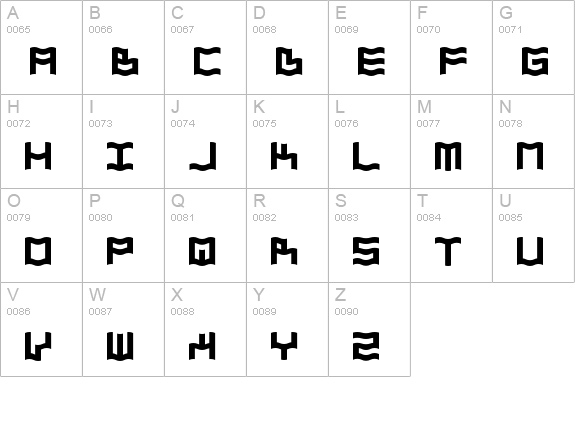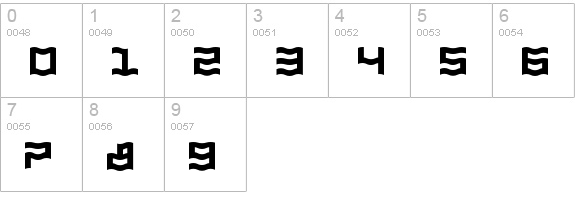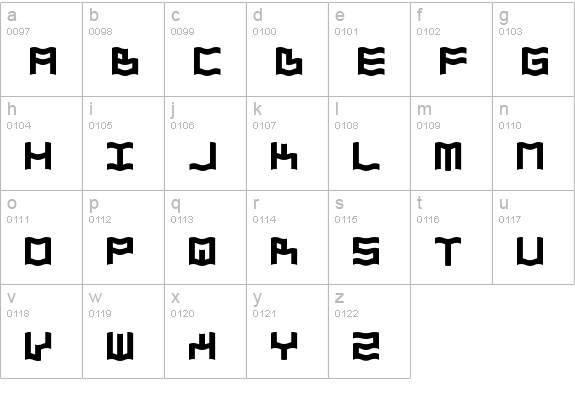
Zdyk Aquarius Font Details
Zdyk Aquarius is a stunning and versatile font that exudes elegance and modernity. Its sleek and stylish design makes it perfect for a wide range of design projects, from branding to editorial design. The unique letterforms and intricate details of Zdyk Aquarius set it apart from other fonts, giving your projects a sophisticated touch. This font is not only visually appealing but also highly legible, making it ideal for both display and body text. Whether you're designing a logo, poster, website, or any other creative project, Zdyk Aquarius will surely make a bold statement. What's even better is that Zdyk Aquarius is available for free download at FontsMarket.com. So you can easily add this beautiful font to your collection without any cost. Don't miss out on the opportunity to enhance your designs with the exquisite Zdyk Aquarius font.